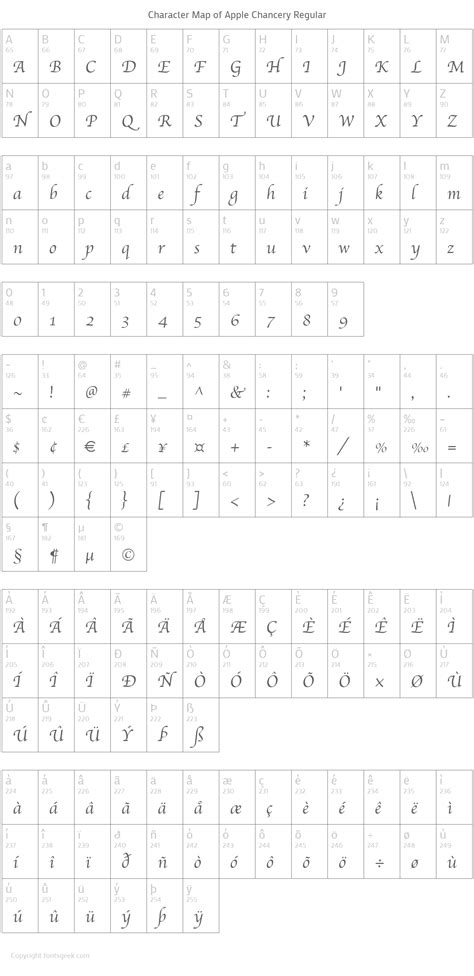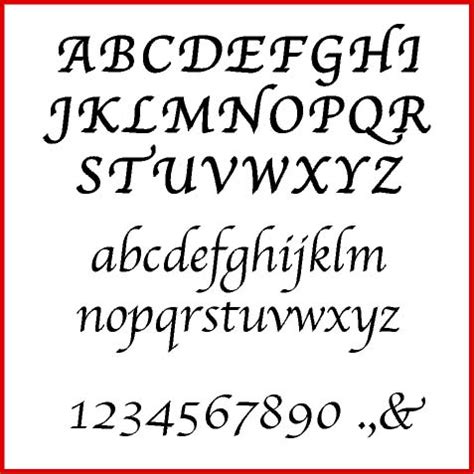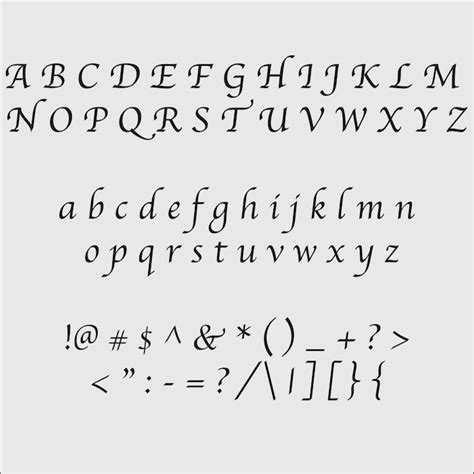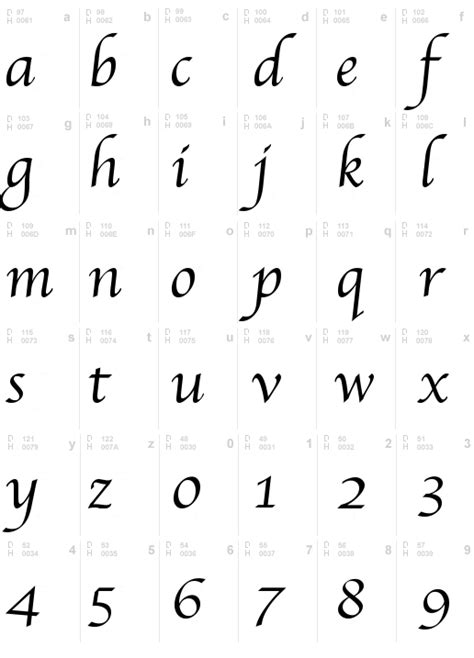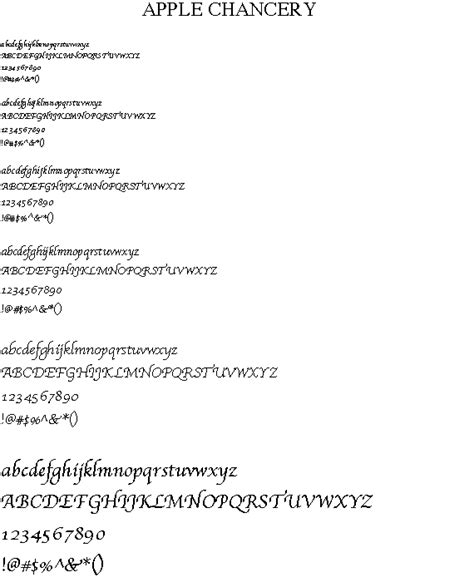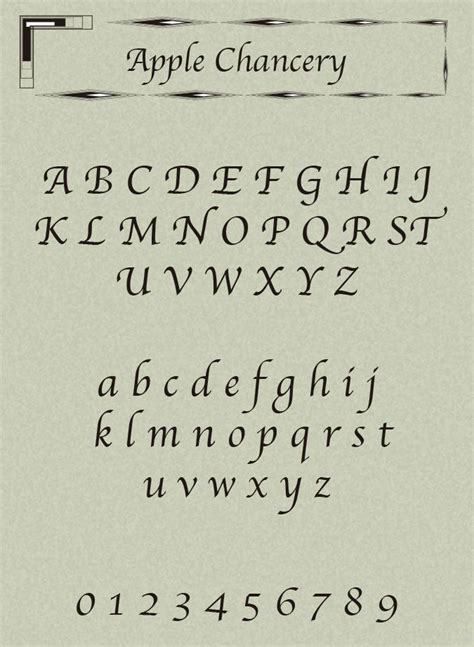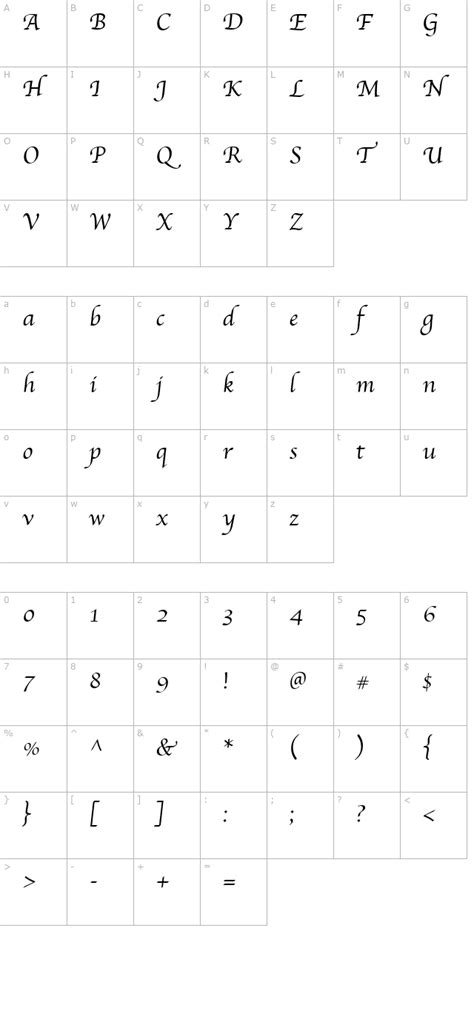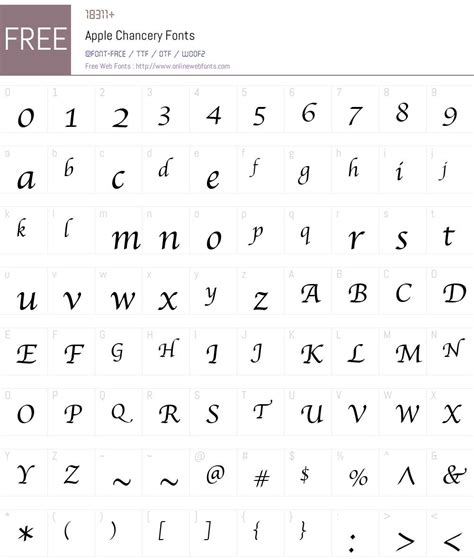
APPLE CHANCERY FONT
The apple chancery font is a popular and distinctive font that has been widely used in various design and publishing applications. This font is known for its elegant and timeless style, which has made it a favorite among designers and typographers. With its graceful curves and refined letterforms, it offers a sophisticated and professional look, making it suitable for a range of design projects.
One of the key features of this font is its versatility. It can be used for both display and text purposes, making it ideal for headings, logos, and body text. Its readability and aesthetic appeal ensure that it remains a popular choice for many design professionals.
The font's design is inspired by traditional calligraphy and has a strong, yet graceful, feel to it. This makes it particularly well-suited for creating a sense of elegance and refinement in any design project. Its unique characteristics have contributed to its enduring popularity and widespread use in the design industry.
In addition to its aesthetic qualities, the apple chancery font also offers a key benefit in terms of readability. Its carefully crafted letterforms and spacing make it highly legible, ensuring that the text is clear and easy to read, even at smaller sizes. This is especially important in printed materials and digital displays where readability is crucial.
Overall, the apple chancery font is a versatile and timeless choice for designers, offering a combination of elegance, readability, and professional appeal. Its unique style and wide range of applications make it a valuable asset in any designer's toolkit.